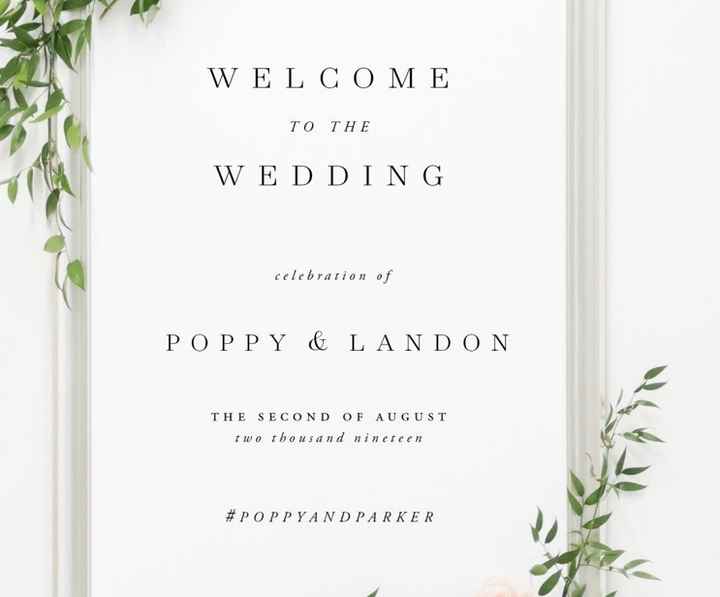
Font help
Can someone help me identify both fonts or something similar? I have searched the web for hours but cannot find the exact one! Specifically looking for the names and then the smaller font for “dinner and dancing to follow.” TIA for any help!!!Font help 1
I work with fonts at times but the picture is really blurry. It can be anything Arial Narrow Italic, Helvetica.. there are thousands of fonts. It could be Tangerine, roundhand or fonts similar to this.
The example is from Shine. It is their poppy suite.
Hi Vall, here is another example if that helps at all.
No problem. It looks like the font that the names are in could possibly be Zeit. Still not quite sure what the secondary font could be. A good site to check is 1001fonts.com. You're able to type in whatever words you want and view them right there on the spot. You can even search what category font you're looking for. For example, handwritten, serif, bold, italic, etc.
Some fonts are interchangeable... "Welcome" looks like Cormorant SC Medium or Bold and "celebration of" looks like Industrial Italic.